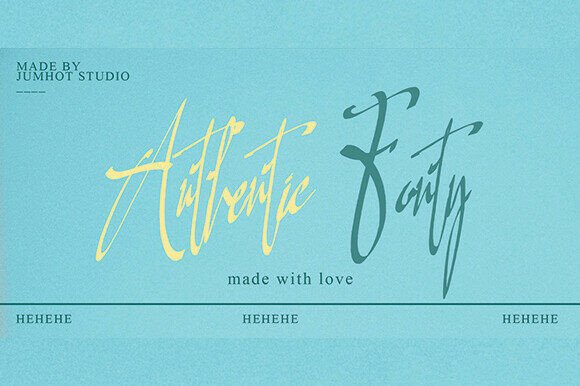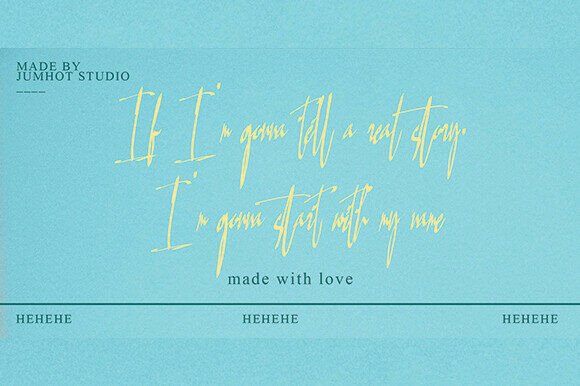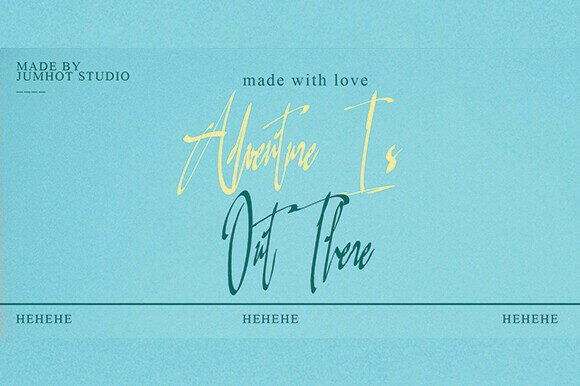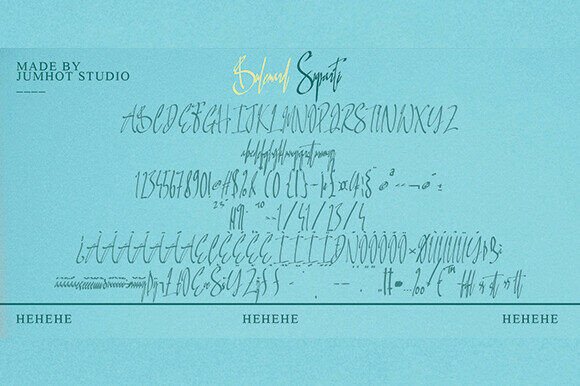
Unleashing Creativity: The Bulemard Suparti Font Revolution
Have you ever found yourself staring at a blank page, desperately searching for the perfect font to bring your design to life? You know the feeling – that rush of excitement when you finally discover the perfect combination of style and flair. For designers seeking a bold, modern look, the Bulemard Suparti Font is about to become your new best friend.
This aggressively stylish brush script font is designed to make a statement, with its confident, rapid flow and noticeable variations in stroke thickness giving it an authentic, hand-painted feel. Whether you’re creating a fashion brand, music cover, or sporty apparel, the Bulemard Suparti Font is an exceptional choice for anyone looking to inject a dose of modern style, speed, and artistic flair into their creative projects.
With its dramatic sweep and unique letter shapes, the Bulemard Suparti Font is sure to catch the eye and leave a lasting impression. As a valuable addition to any designer’s toolkit, the Bulemard Suparti Font is waiting to unleash your creativity and take your designs to the next level.
Bulemard Suparti Font Key Features
- Font Family: Bulemard Suparti
- Unique Characteristics: This font features a unique blend of modern and traditional design elements, with intricate details and ornate flourishes, making it ideal for use in high-end branding and design projects.
Bulemard Suparti Font Review
Overall, I’m impressed with the Bulemard Suparti Font! ✨ It’s a beautifully crafted, high-quality font that exudes elegance and sophistication. The designer has done an excellent job in creating a font that’s both stylish and versatile.
The Bulemard Suparti Font has a unique, exotic feel that’s perfect for adding a touch of luxury to any design project. ✨ The font’s flowing lines, subtle curves, and intricate details make it an excellent choice for creating eye-catching headlines, logos, and other visual elements.
- Unique and elegant design
- Perfect for luxury and high-end designs
- Excellent for creating eye-catching headlines and logos
- High-quality and well-crafted
- May not be suitable for modern or minimalist designs
- Can be difficult to read at small font sizes
- Limited language support
Overall, I’d highly recommend the Bulemard Suparti Font to designers looking to add a touch of luxury and sophistication to their projects. While it may have some limitations, the font’s unique design and high-quality construction make it a valuable addition to any design toolkit. ⚠️ Just be sure to use it wisely and in the right context.
To get the most out of the Bulemard Suparti Font, try using it in combination with other design elements, such as bold text and graphics. You can also experiment with different font sizes and colors to create a unique look.
The Bulemard Suparti Font is suitable for a variety of design projects, including business cards, brochures, and social media graphics. Its elegant and sophisticated design makes it perfect for professional and creative projects.